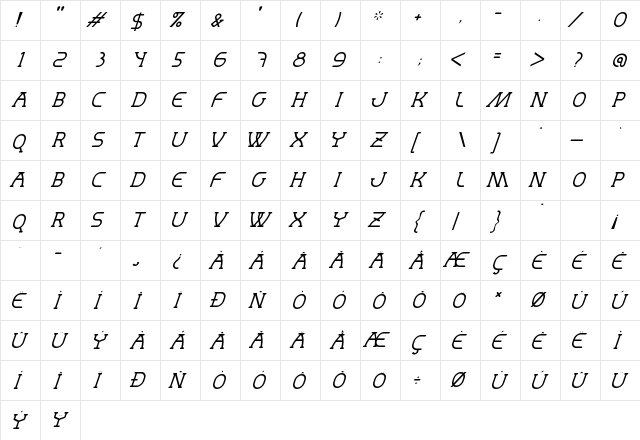
MastumThinItalic Regular Font Preview
| Foundry | Xerographer Fonts |
| Designer | Max Infeld - Xerographer Fonts |
Design Context for MastumThinItalic Typeface
MastumThinItalic takes a measured approach to typography — its balanced proportions and neutral character make it a reliable workhorse for both digital and print work. The dynamic lean of this cut emphasises speed and emphasis in any layout. The delicate stroke weight brings airiness and refinement to layouts.